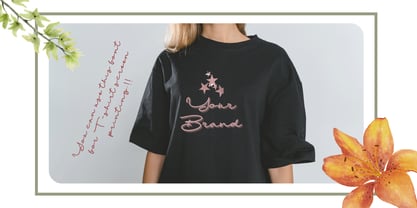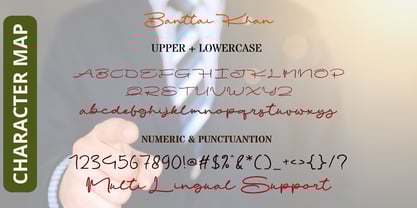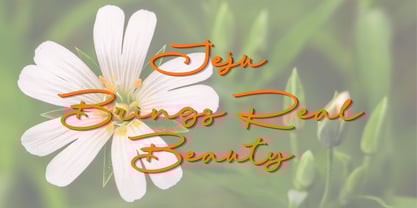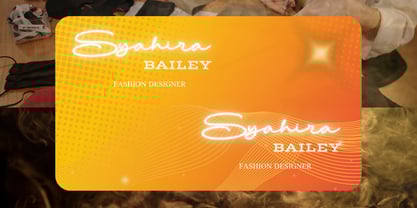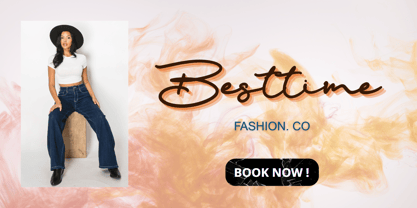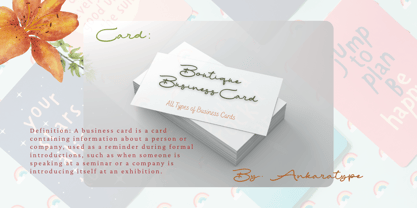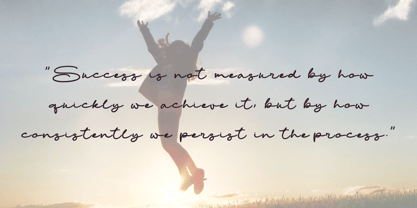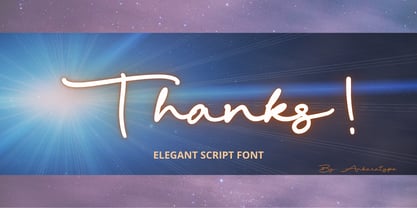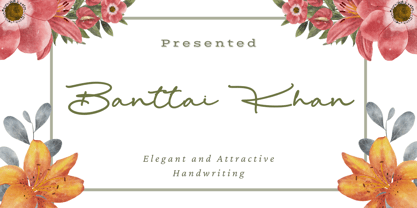
Banttai Khan
Banttai Khan – Distinctive Style with a Cool Touch
Get ready to meet Banttai Khan, a handcrafted script font that blends elegant strokes with bold personality. Its natural charm makes it perfect for everything from branding to editorial design, and everything in between.
This font includes:
Uppercase & lowercase characters
Natural, flowing ligatures
Multilingual support
Punctuation & numbers
Ideal for:
Wedding invitations, logo designs, social media posts, packaging concepts, fashion lookbooks, or any project that requires a stylish, human touch.
Let Banttai Khan be your new creative friend—adding an expressive touch to your next big idea.